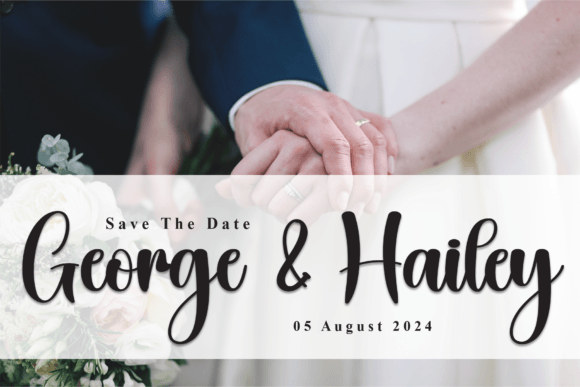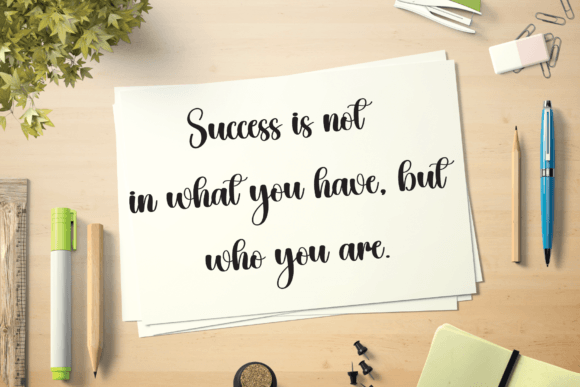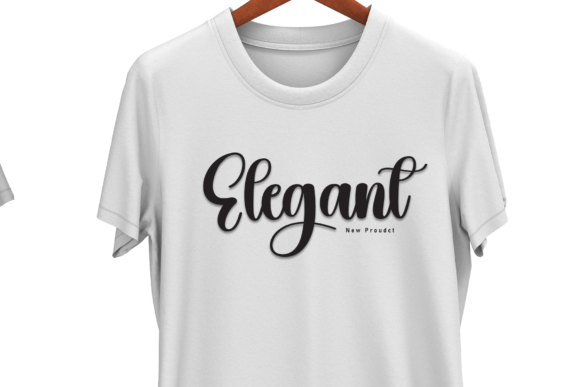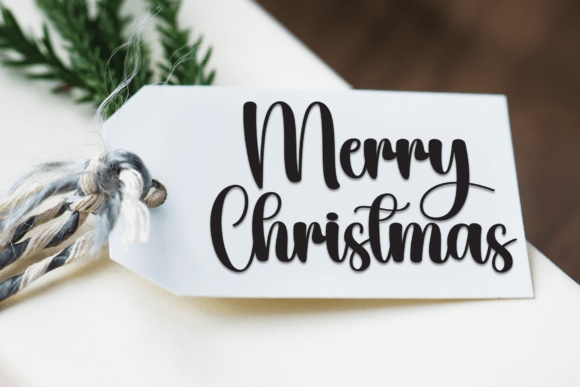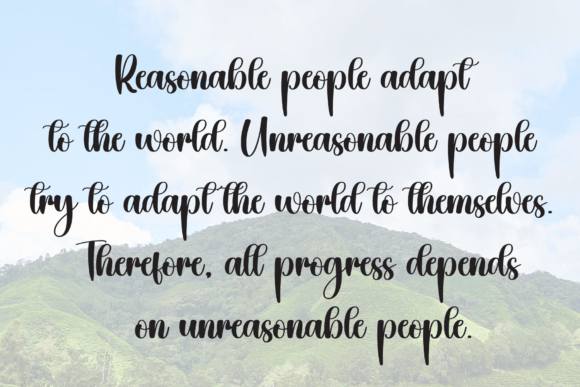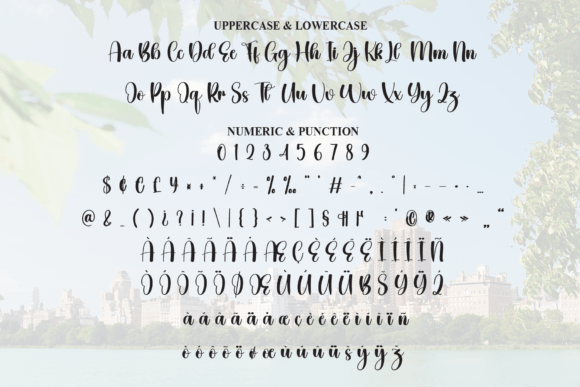
The Charm of Dayton Font: A Designer’s New Best Friend
I’ll never forget the time I was working on a wedding invitation project, and my client asked for a font that felt “warm and fuzzy.” I scoured the internet, tried out a dozen fonts, but nothing seemed quite right. That was until I stumbled upon Dayton Font. Its smooth, flowing letters immediately caught my eye, and I knew I’d found the perfect fit. In this article, I’ll share my love for Dayton Font, its features, and how to make the most of it in your designs.
An Honest Review of Dayton Font
- ✨ Smooth, flowing letters that give your text a personal touch
- ✅ Perfect for invitations, notes, or any design that needs a warm, human feel
- 🎉 Easy to read, even in smaller font sizes
- 👍 Highly versatile, suitable for a wide range of design projects
While Dayton Font is an excellent choice, it’s not without its quirks. For instance:
- 🤔 Some letters, like the uppercase “Q” and “J,” have a slightly condensed design, which might affect spacing in certain contexts.
- ⚠️ The font doesn’t come with an extensive range of weights, so you might need to get creative with styling to achieve the desired effect.
The Story Behind Dayton Font
Dayton Font was designed with the intention of creating a warm, inviting typeface that would bring a personal touch to any design project. Its creator drew inspiration from classic handwritten fonts, with a focus on smooth lines and flowing connections. The result is a font that feels both modern and timeless.
| Font Name | Dayton Font |
| Author | Misterletter.co |
Q: What type of projects is Dayton Font best suited for?
A: Dayton Font is perfect for designs that require a warm, human feel, such as invitations, notes, and other personal or creative projects.
Q: Is Dayton Font available in different weights?
A: Dayton Font comes in a single weight, but its versatility and range of OpenType features make it easy to style and adapt to different design contexts.